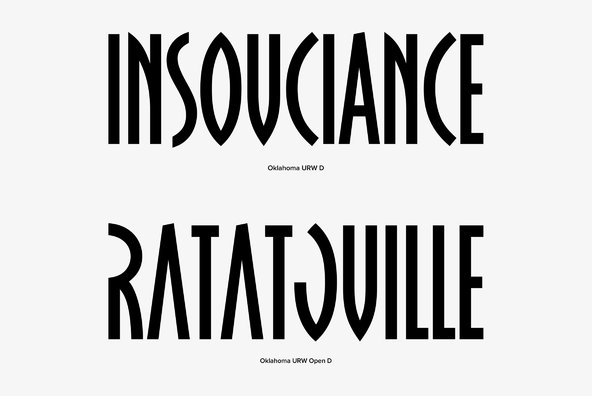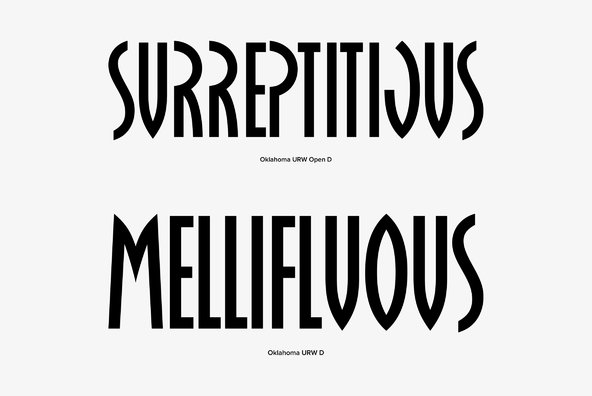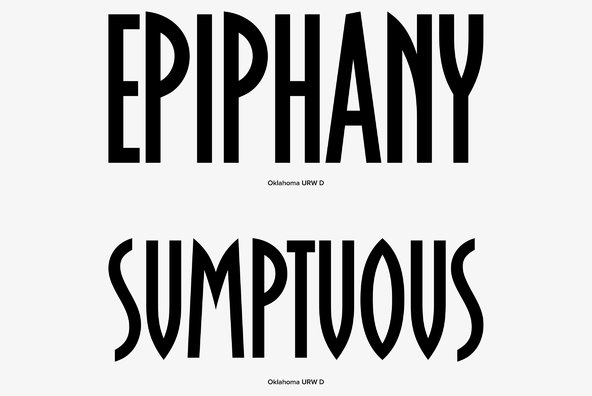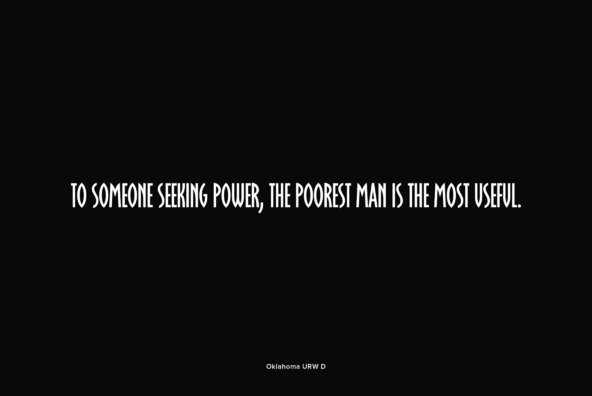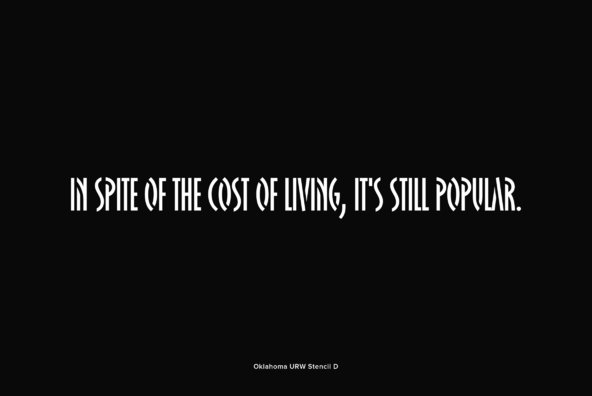
Designed by Achaz Reuss in 1993, Oklahoma is a wild and quirky art deco style font design. The complete family contains three styles, including the very interesting stencil and open style options.